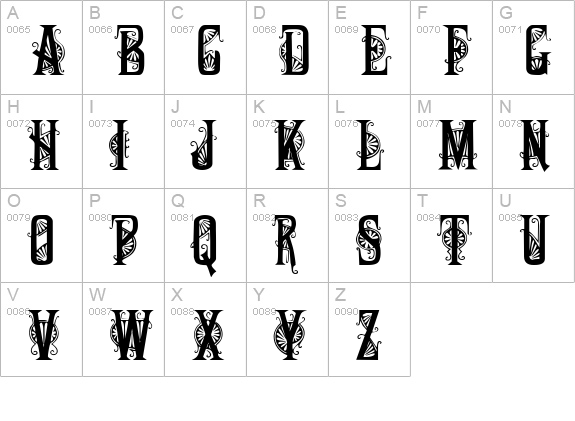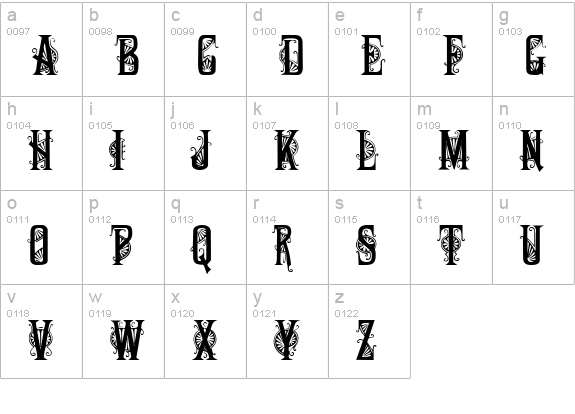
DecoCaps Font Details
DecoCaps font is a stunning display typeface that effortlessly combines elegance with a touch of retro style. With its bold and intricate letterforms, this font is sure to make a bold statement in any design project. The unique geometric shapes and exaggerated curves give DecoCaps font a distinctive look that is both modern and timeless. This font is perfect for adding a touch of sophistication to your logos, headlines, posters, and other creative projects. Its versatility allows it to be used in a variety of design styles, from vintage to contemporary. What sets DecoCaps font apart is not only its exquisite design but also the fact that it is freely available to download at FontsMarket.com. This means that you can easily access this amazing font without any cost, making it an ideal choice for designers on a budget or anyone who appreciates high-quality fonts without breaking the bank. So why wait? Get your hands on DecoCaps font today and elevate your designs to new heights. Whether you need to create eye-catching advertisements or design sleek business cards, this font will definitely make a lasting impression. Download it for free at FontsMarket.com and let your creativity soar!